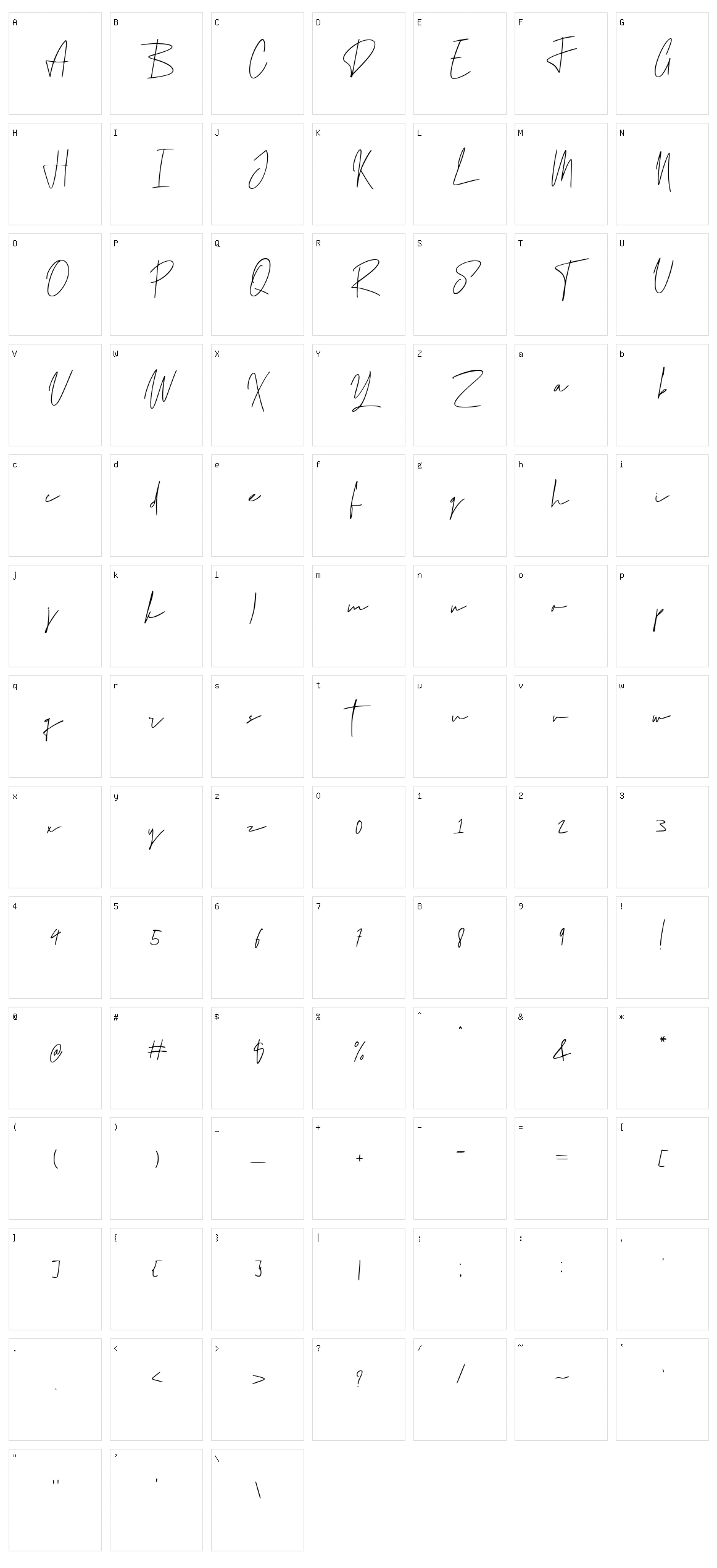
The free font Yokohama is carefully designed by Lutfi Mubarok, showcasing a thoughtful balance of creativity and usability and falls under the Script font style. When you download the ZIP file, it contains only 26.98 KB of font files, making it lightweight and quick to download. Please review the license details below to understand permitted usage and distribution rights. If license information is not available, we recommend using this font for personal projects only or contacting the author directly for commercial usage permissions.